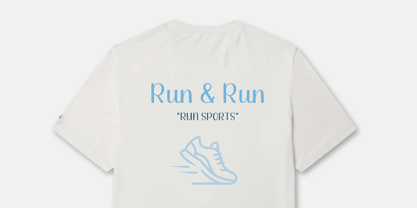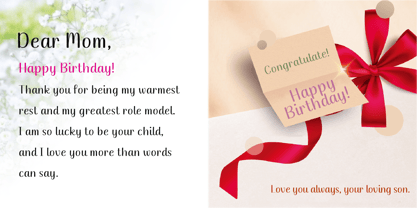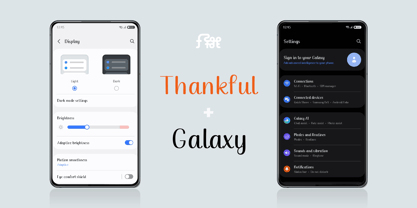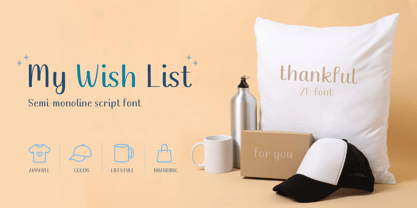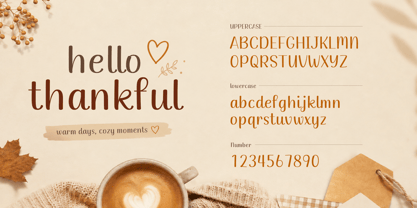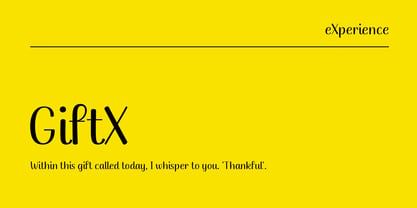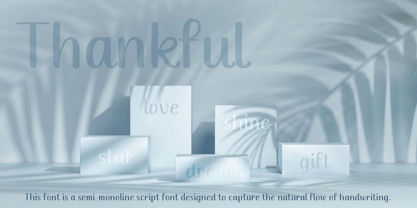
ZFthankful
by ZooFont
The ZFthankful Font Family was designed by joo-hong Kim and published by ZooFont. ZFthankful contains 1 styles. More about this family
This font is a semi-monoline script typeface that beautifully captures the natural flow of handwriting. It emphasizes soft, rounded strokes typical of cursive writing, achieving a stable and balanced aesthetic even amidst fluid, dynamic movements. Notably, the loop structures of lowercase letters such as “f,” “g,” “j,” and “y” are refined into graceful yet restrained forms, merging a natural writing feel with meticulous craftsmanship. This versatile font is perfect for conveying warmth, intimacy, and a personal touch in various contexts, including branding, web design, and editorial projects. Its elegant design and fluidity make it an excellent choice for creating engaging and memorable visual communications.